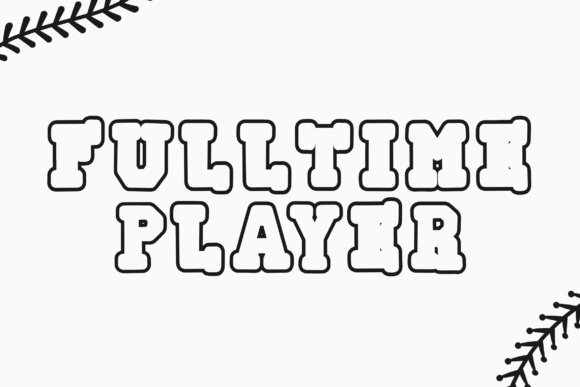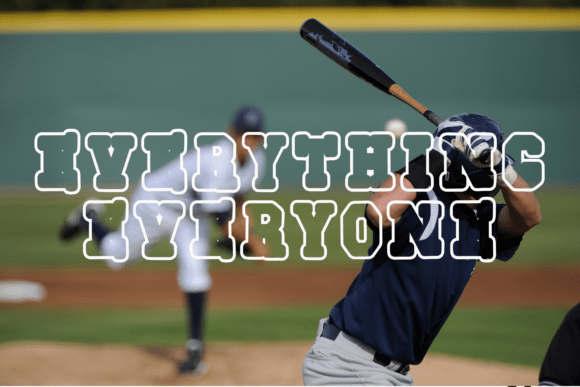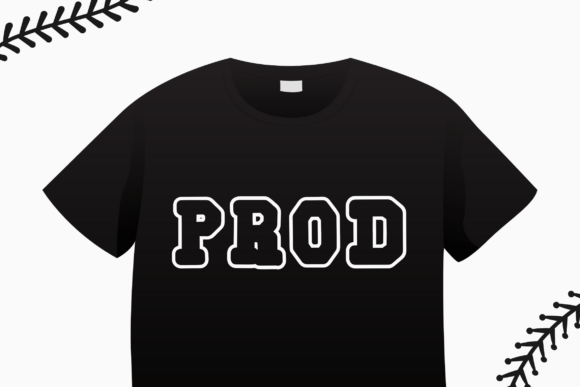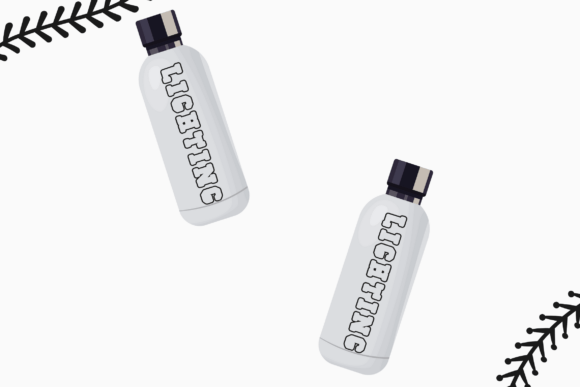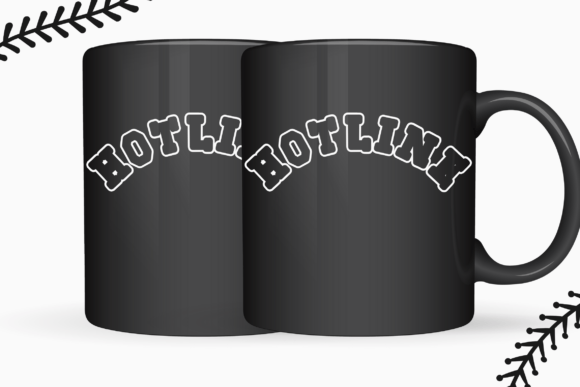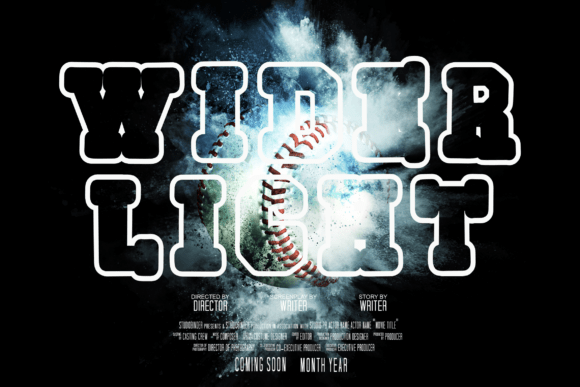
Echoline Outline Font: Elevate Your Designs with Refined Elegance and Playful Spirit
Introducing Echoline Outline, a beautifully handcrafted display font that masterfully blends contemporary readability with a nostalgic retro flair. This stunning font is designed to bring a touch of sophistication and playfulness to your design work, making it perfect for a wide range of projects, from logos and social media graphics to posters and merchandise.
The Charm of Echoline Outline
Echoline Outline’s outlined letterforms are a breath of fresh air, boasting a clean and chic design that is sure to captivate your audience. The font’s unique personality shines through in its irresistibly sophisticated yet wholesomely playful charm, making it an excellent addition to any project. Whether you’re looking to make a bold statement in headlines or deliver understated elegance in branding, Echoline Outline is the perfect choice.
Key Features of Echoline Outline
- Handcrafted with love: Echoline Outline is carefully crafted to ensure a unique and authentic look that sets it apart from other fonts.
- Contemporary readability: The font’s clean design ensures excellent readability, making it perfect for use in a variety of contexts.
- Nostalgic retro flair: Echoline Outline’s outlined letterforms evoke a sense of nostalgia, adding a touch of classic charm to your designs.
- Versatile: Use Echoline Outline on its own for a minimalist appeal or combine it with solid fonts to create a captivating dimensional contrast.
Echoline Outline is a game-changer in design elements, offering a wide range of possibilities for designers and crafters. Whether you’re working on a logo, social media graphic, poster, or merchandise, this font is sure to elevate your design work. Its unique charm and versatility make it an excellent choice for:
- Logos: Create a lasting impression with Echoline Outline’s bold and elegant letterforms.
- Social media graphics: Add a touch of sophistication and playfulness to your social media posts and stories.
- Posters: Make a bold statement with Echoline Outline’s eye-catching design.
- Merchandise: Add a unique and stylish touch to your merchandise, from t-shirts to mugs.
Tips for Using Echoline Outline
To get the most out of Echoline Outline, here are a few tips to keep in mind:
- Experiment with different sizes: Echoline Outline looks great in large headlines, but it can also be used in smaller sizes to add a touch of elegance to your designs.
- Combine with solid fonts: Pair Echoline Outline with solid fonts to create a captivating dimensional contrast that adds depth to your designs.
- Play with colors: Echoline Outline looks great in a variety of colors, so don’t be afraid to experiment and find the perfect hue for your design.
Echoline Outline is a beautifully crafted display font that offers a unique blend of refined elegance and playful spirit. Its outlined letterforms, contemporary readability, and nostalgic retro flair make it perfect for a wide range of design projects. Whether you’re a designer or crafter, Echoline Outline is sure to become a valuable addition to your font collection. So why wait? Experience the charm of Echoline Outline for yourself and elevate your designs to new heights.